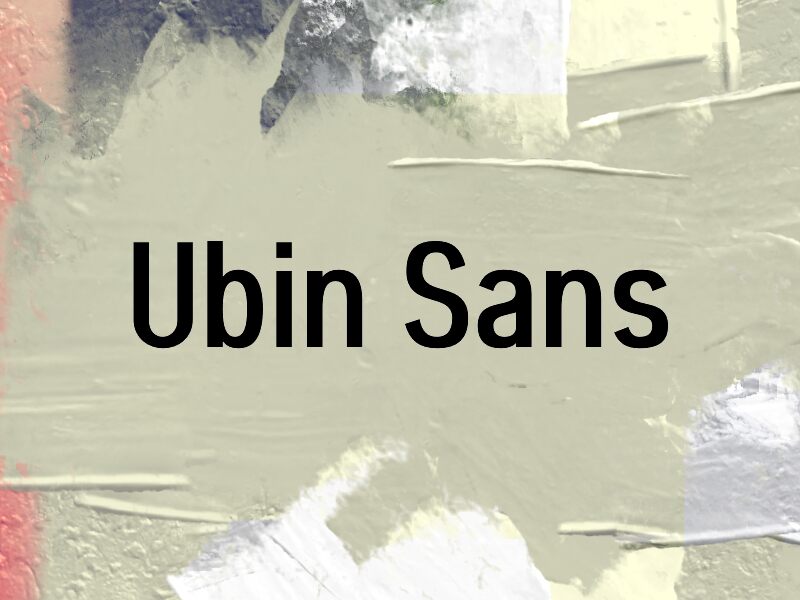
Ubin Sans
Ubin Sans font by wepfont.com is a free condensed sans serif typeface that makes tight layouts feel effortless. Its tall, straight-sided letters and compact width squeeze more text into narrow spaces without feeling cramped, while the even strokes keep everything looking clean and sturdy. The overall texture is crisp and businesslike, with just enough warmth in the curves to avoid looking cold or mechanical.
Using Ubin Sans, headlines and subheads snap into place on crowded posters, mobile UI, slim sidebars, and data-heavy dashboards, and it also works well for wayfinding, labels, and minimalist branding. The consistent rhythm makes multi-line titles surprisingly easy to read at smaller sizes, especially in bold weights. For a balanced hierarchy, pair this free font with a open, humanist sans for body copy and let Ubin Sans handle the denser, attention-grabbing text.